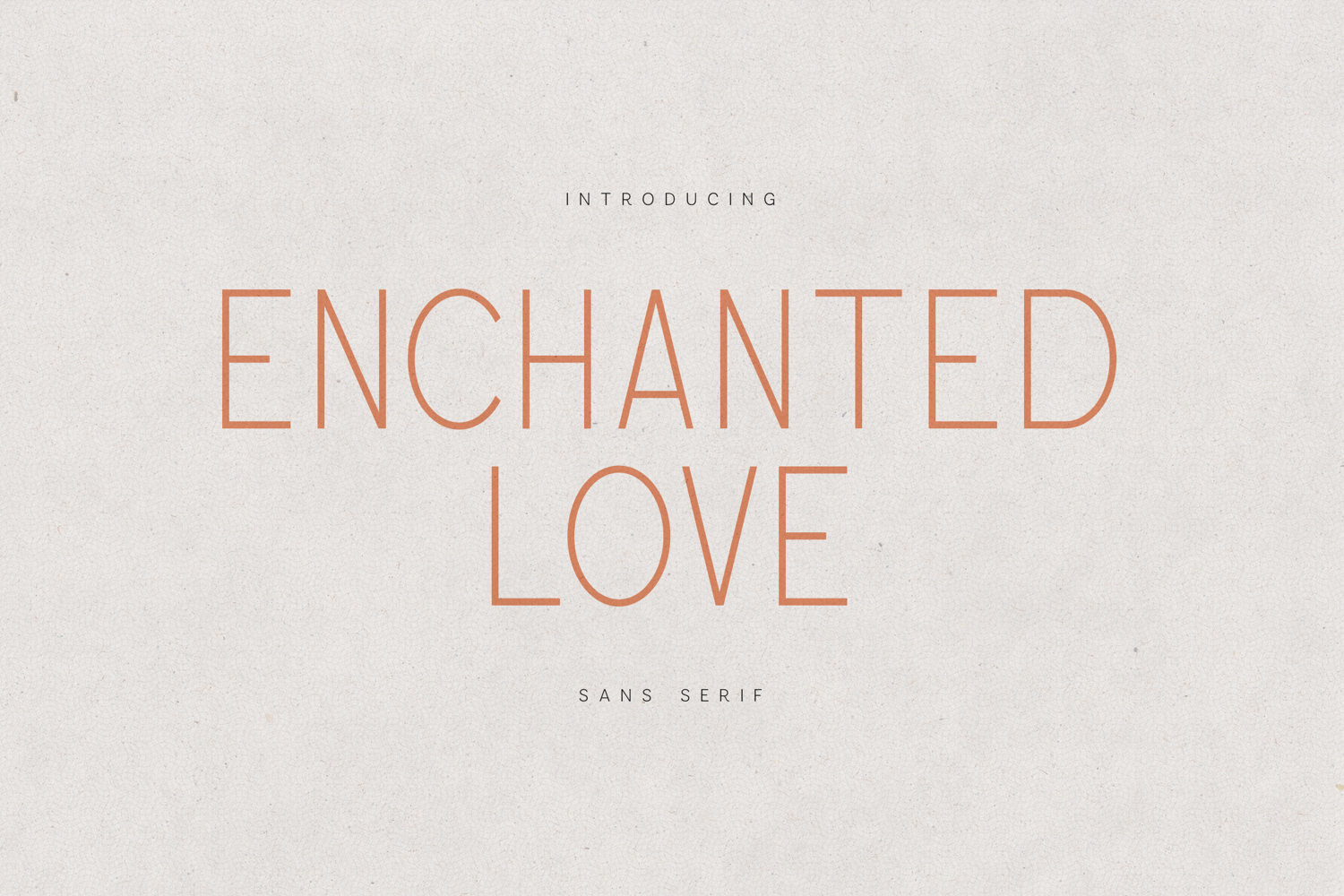
Enchanted Love Elegant Modern Sans Serif Font
Enchanted Love is a refined modern sans serif designed with softness, balance and quiet sophistication in mind.
Its clean geometric construction is gently contrasted by subtle humanist curves, creating a typeface that feels warm, elegant and contemporary at the same time.
• Editorial layouts
• Fashion branding
• Luxury packaging
• Wedding invitations
• Social media graphics
• Modern logo design
• Lifestyle and beauty brands
Enchanted Love is ideal for designers who want minimalism with emotion — a clean structure with poetic presence.